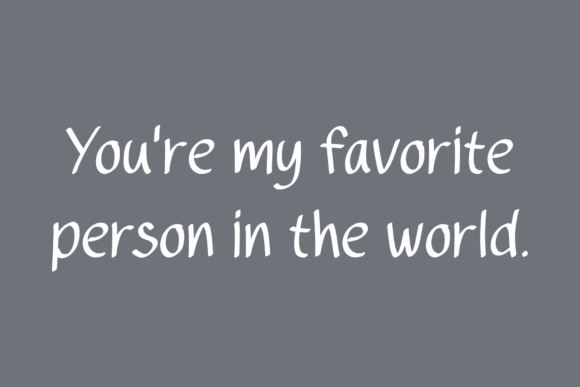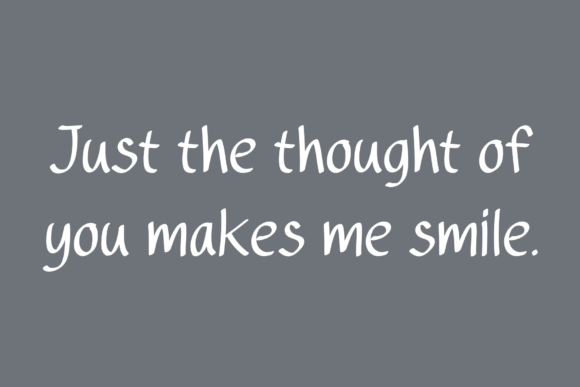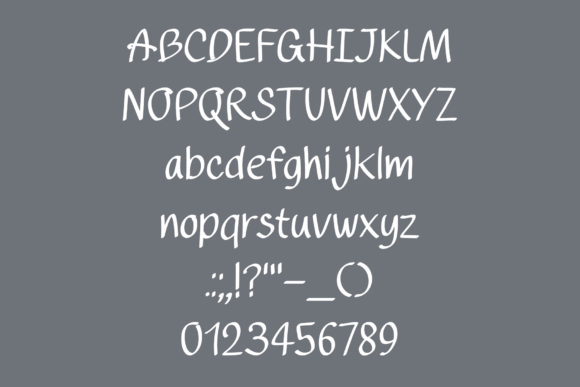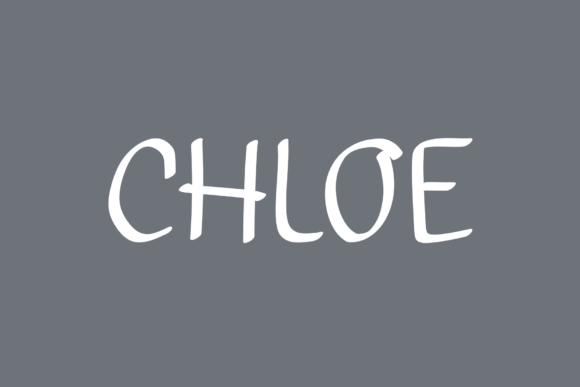
Introducing Chloe: The Elegant Script Font for Your Design Projects
Are you looking for a font that can add a touch of elegance and sophistication to your design projects? Look no further than Chloe, the beautiful script font that is sure to take your designs to the next level. With its flowing lines, intricate details, and classic yet modern style, Chloe is the perfect choice for a wide range of design applications, from wedding invitations and greeting cards to logos and branding.
What Makes Chloe Special?
Chloe is more than just a font – it’s an experience. Its elegant script style is designed to evoke a sense of luxury, sophistication, and refinement, making it perfect for designers and crafters who want to create high-end designs that impress. Whether you’re creating a wedding invitation, a logo, or a branding campaign, Chloe’s beautiful lines and intricate details are sure to make your design stand out.
Key Features of Chloe Font
- Flowing Lines: Chloe’s script style features flowing lines that are both elegant and refined, making it perfect for designs that require a touch of sophistication.
- Intricate Details: The font’s intricate details add a level of complexity and beauty to your designs, making them truly stand out.
- Classic yet Modern Style: Chloe’s classic script style is updated with a modern twist, making it perfect for designers who want to create designs that are both timeless and contemporary.
- Versatile: Chloe is a versatile font that can be used for a wide range of design applications, from wedding invitations and greeting cards to logos and branding.
Why Choose Chloe Font?
There are many fonts on the market that claim to be elegant and sophisticated, but Chloe stands out from the rest. Here are just a few reasons why:
- Unique Style: Chloe’s unique script style is unlike any other font on the market, making it perfect for designers who want to create designs that stand out.
- High-Quality Design: The font is designed to the highest standards, ensuring that it looks beautiful and elegant in any design application.
How to Use Chloe Font in Your Design Projects
Using Chloe in your design projects is easy. Here are just a few tips to get you started:
- Wedding Invitations: Use Chloe to create beautiful wedding invitations that set the tone for the big day.
- Greeting Cards: Add a touch of elegance to your greeting cards with Chloe’s flowing lines and intricate details.
- Logos and Branding: Use Chloe to create a logo or branding campaign that is both sophisticated and refined.
- Stationery: Add a touch of elegance to your stationery with Chloe’s beautiful script style.
In conclusion, Chloe is a beautiful script font that is sure to take your design projects to the next level. With its flowing lines, intricate details, and classic yet modern style, Chloe is the perfect choice for designers and crafters who want to create high-end designs that impress. Whether you’re creating a wedding invitation, a logo, or a branding campaign, Chloe is the perfect font for you.